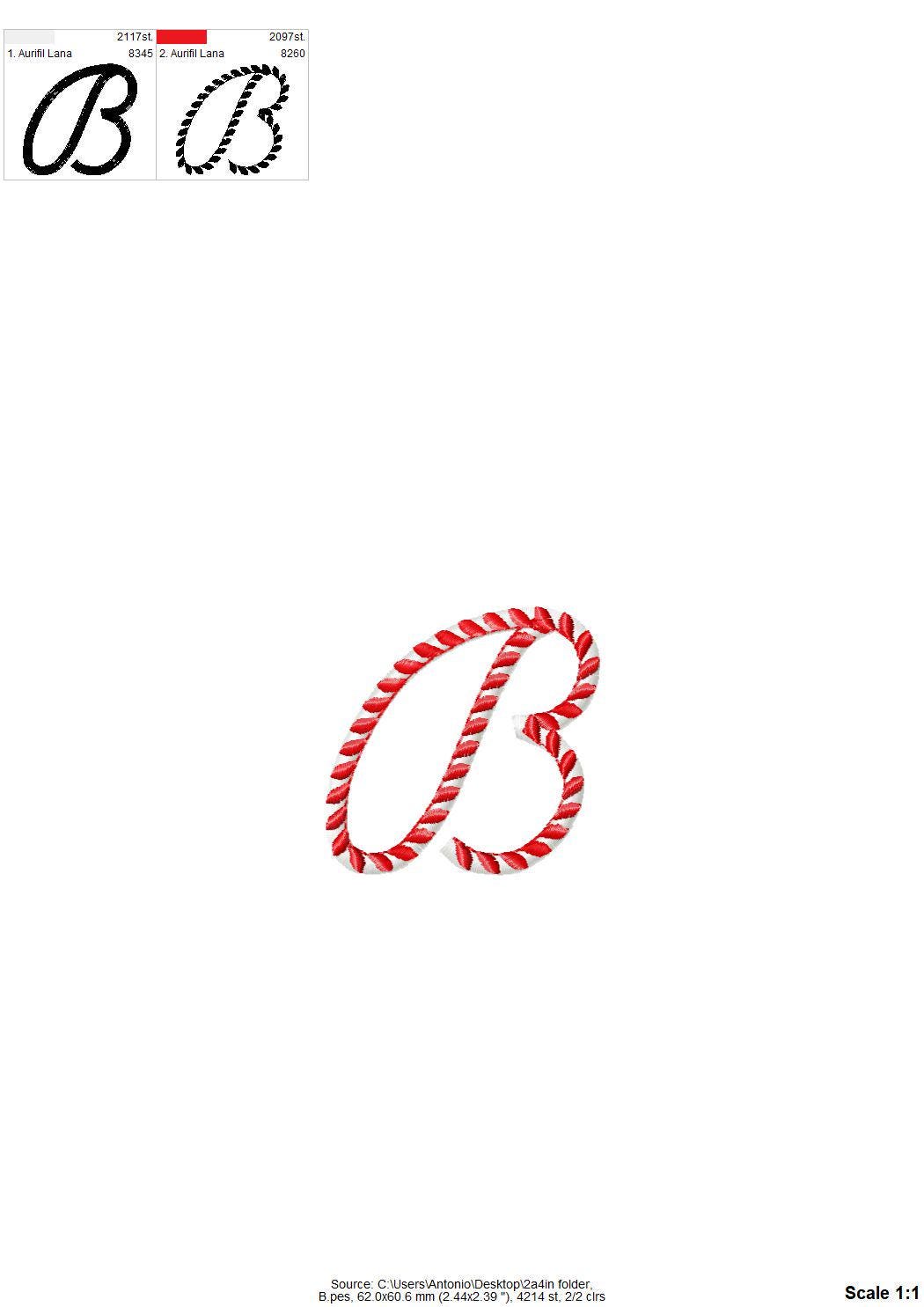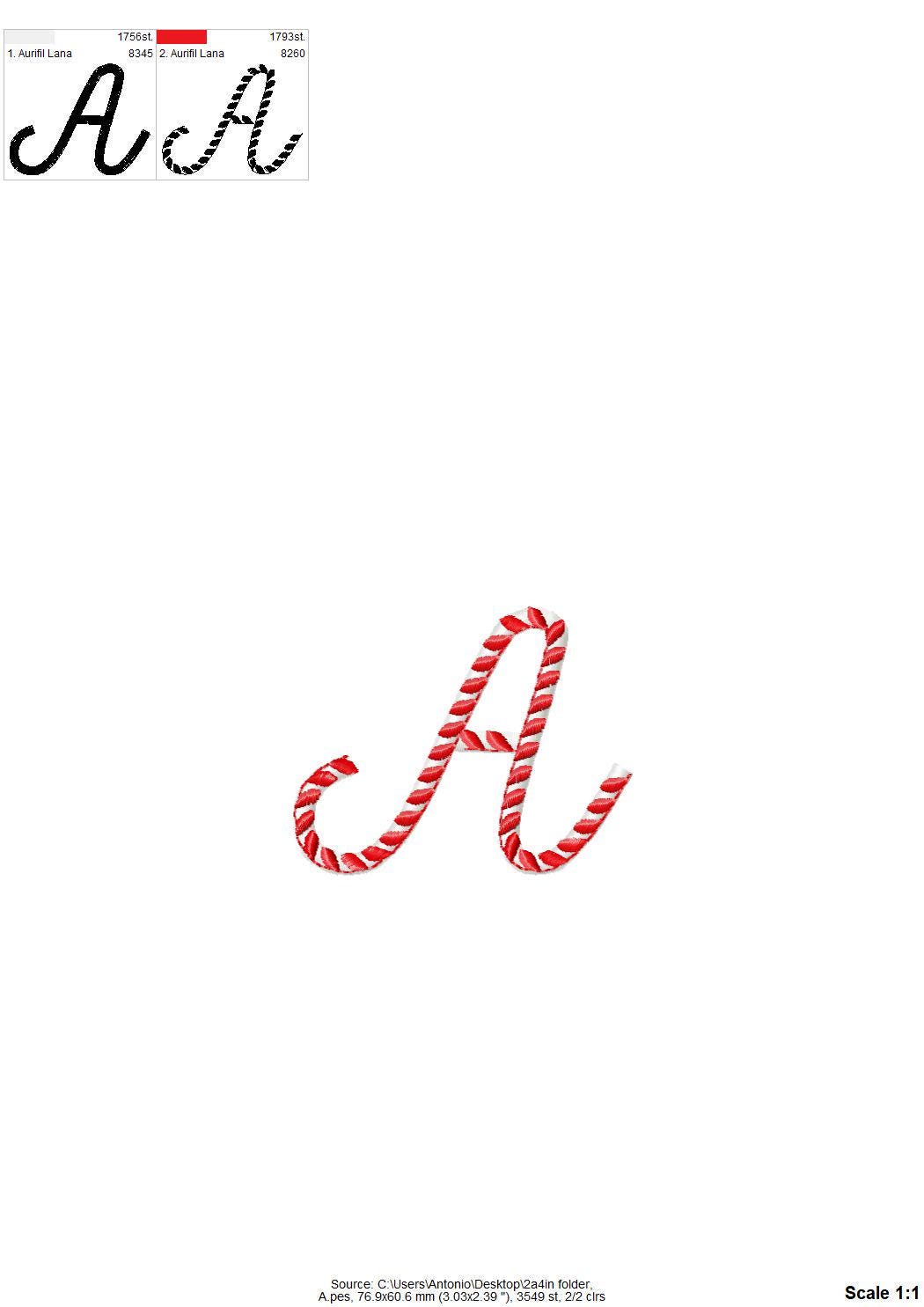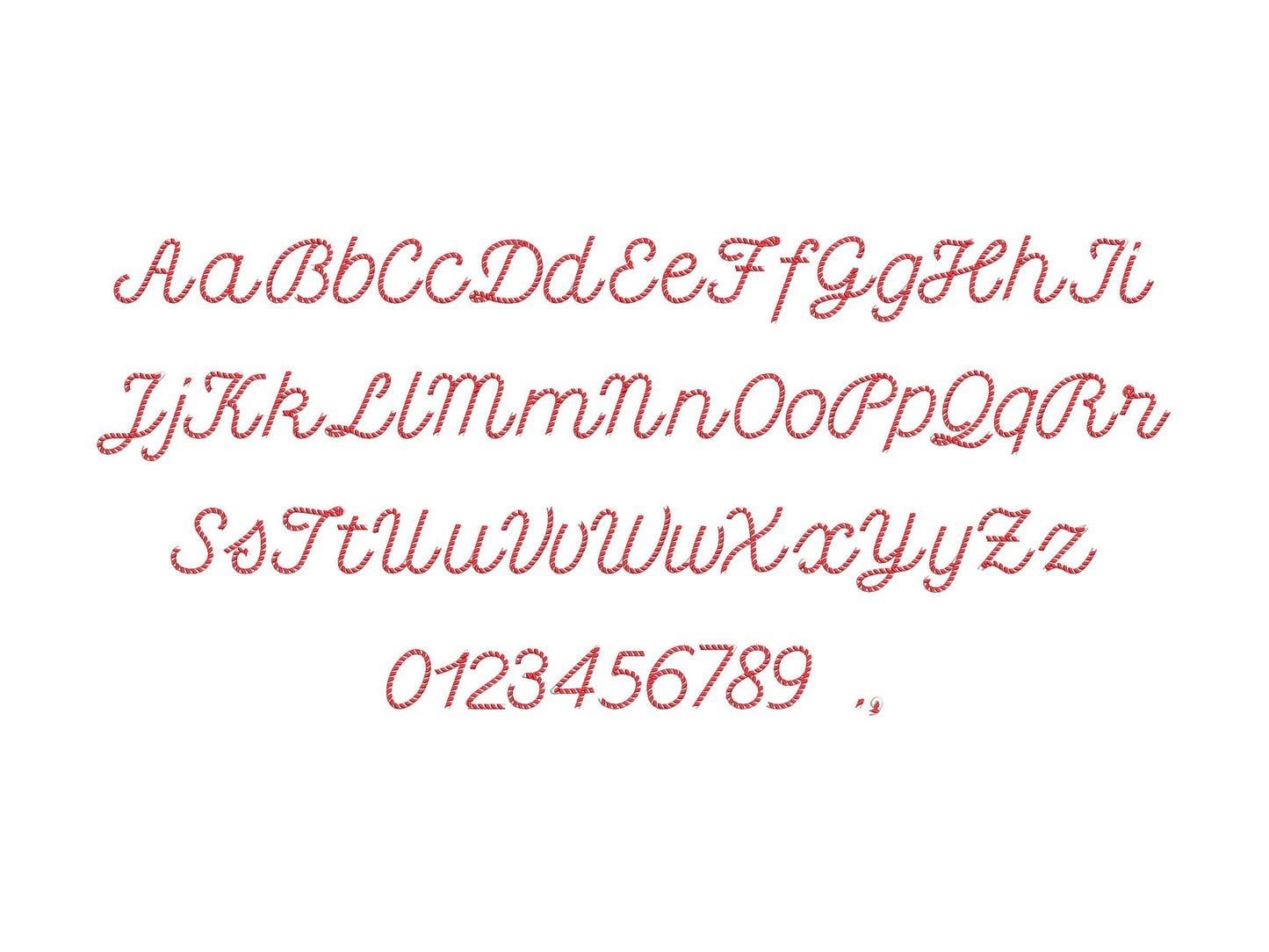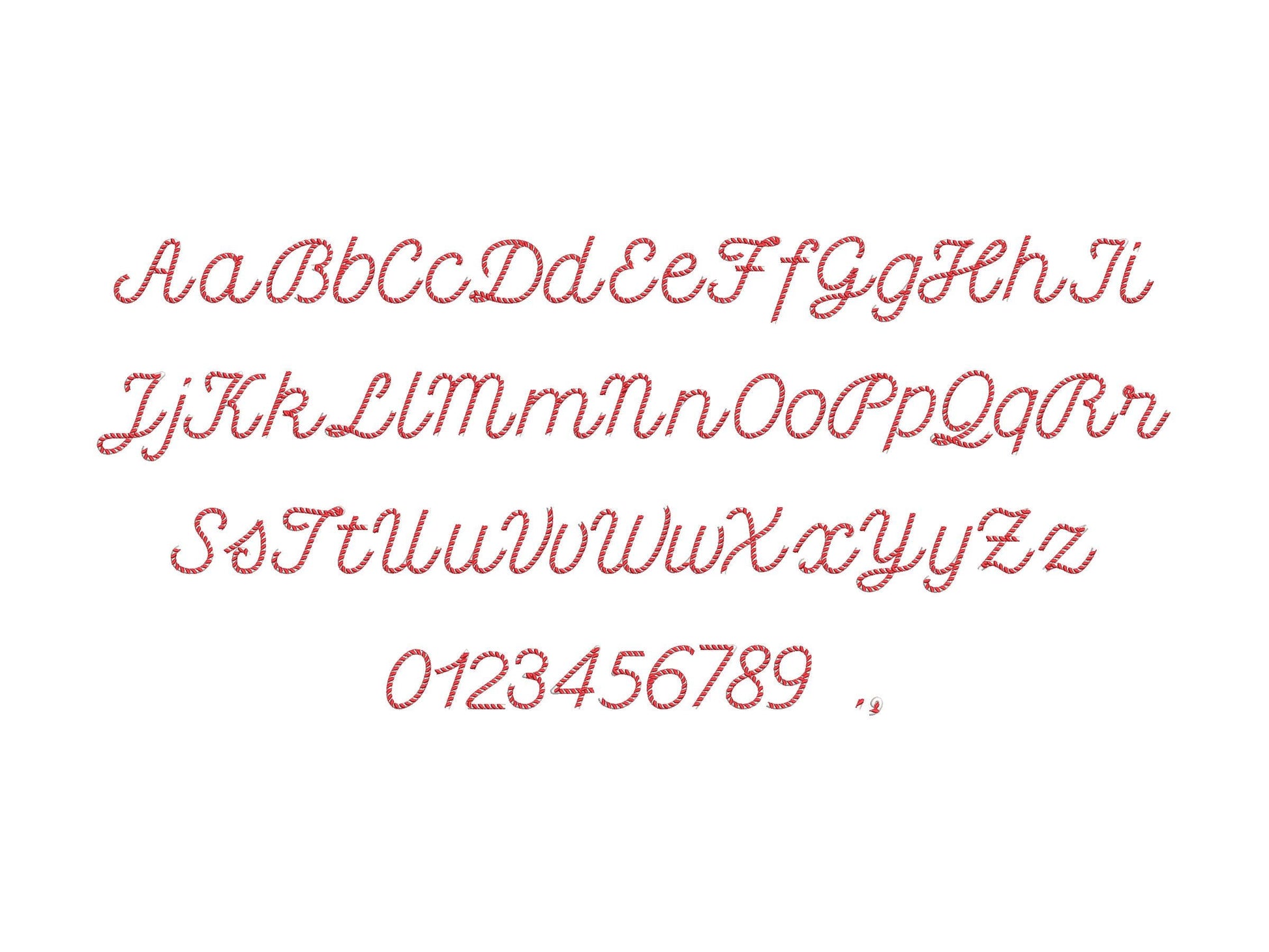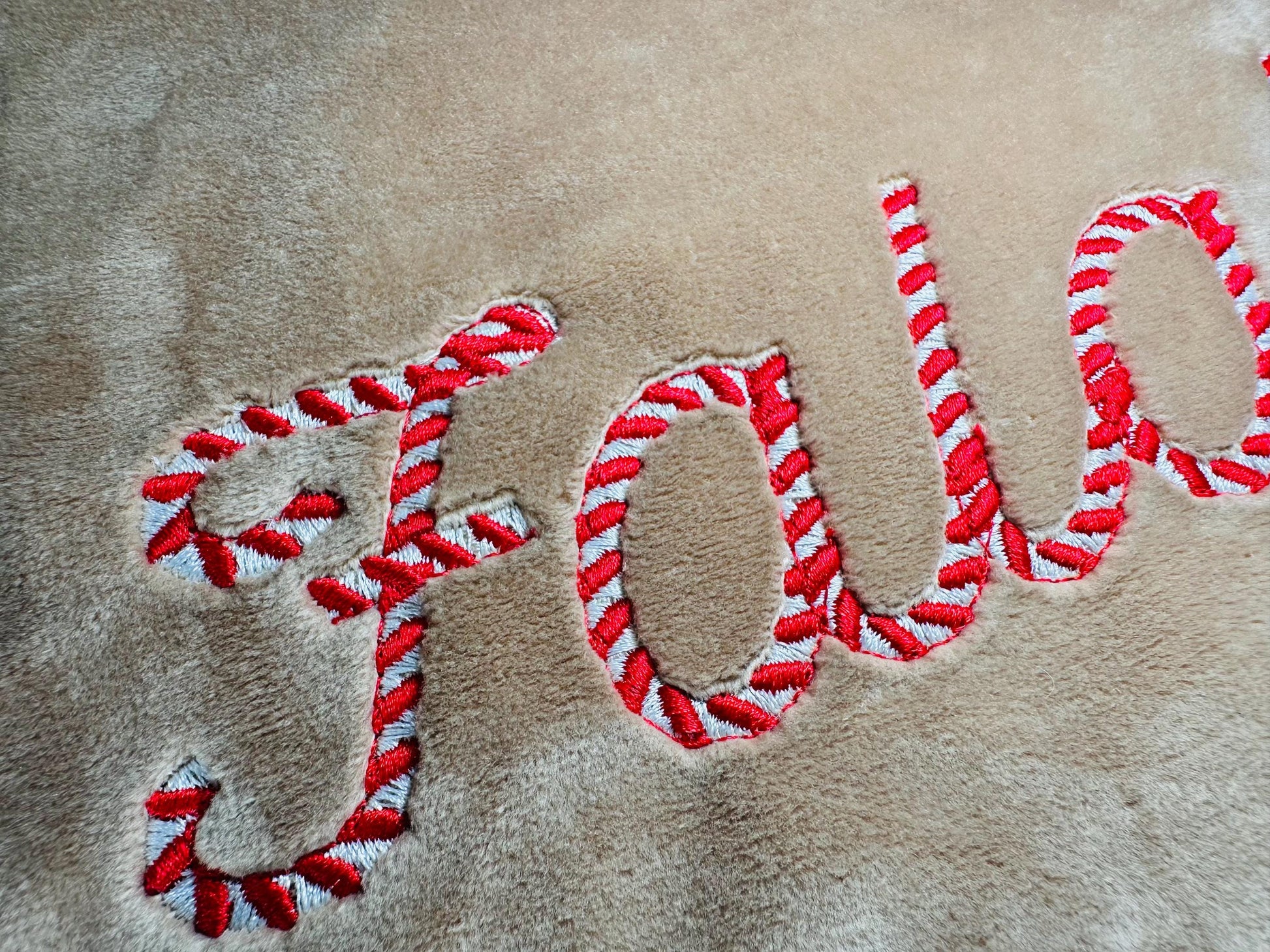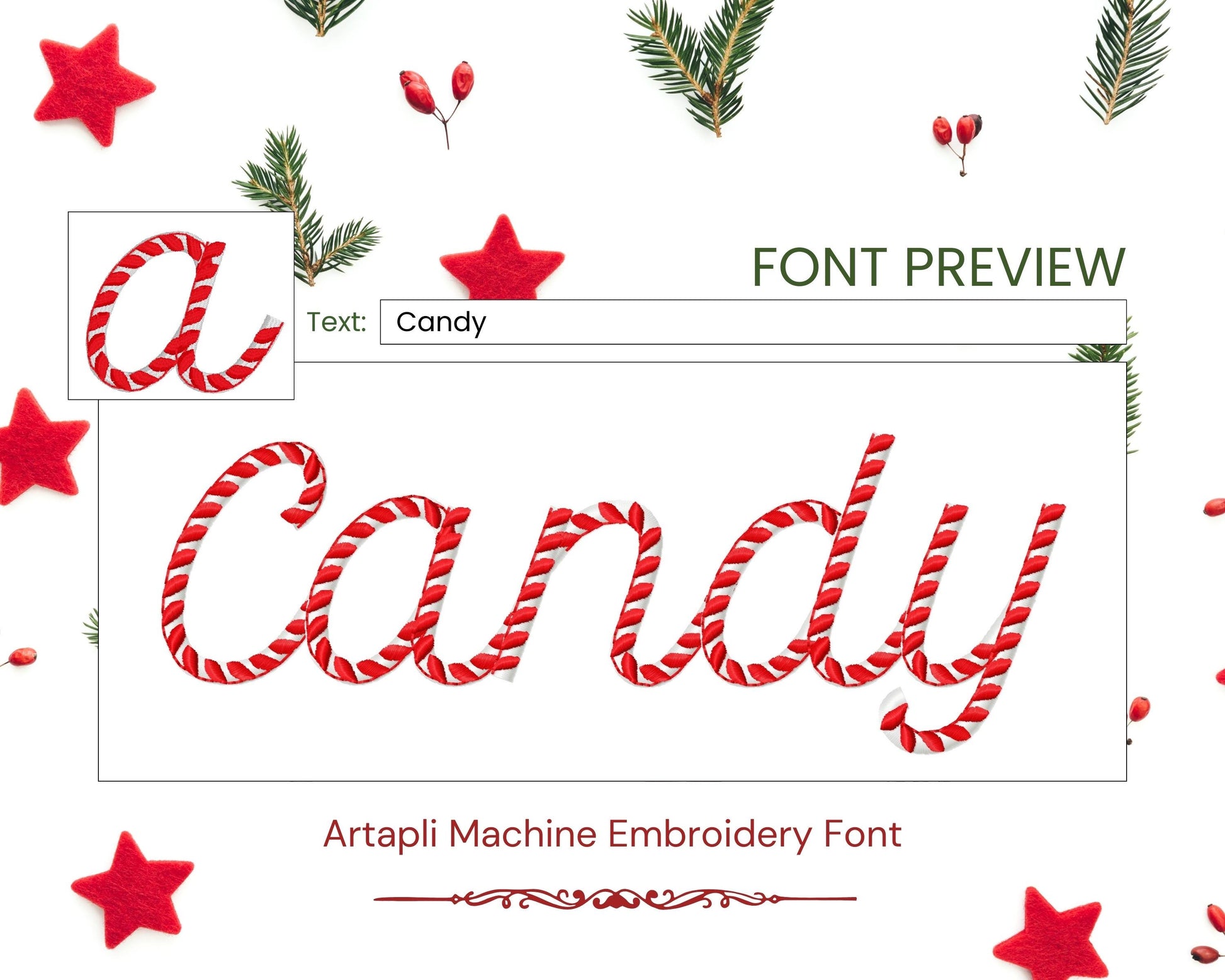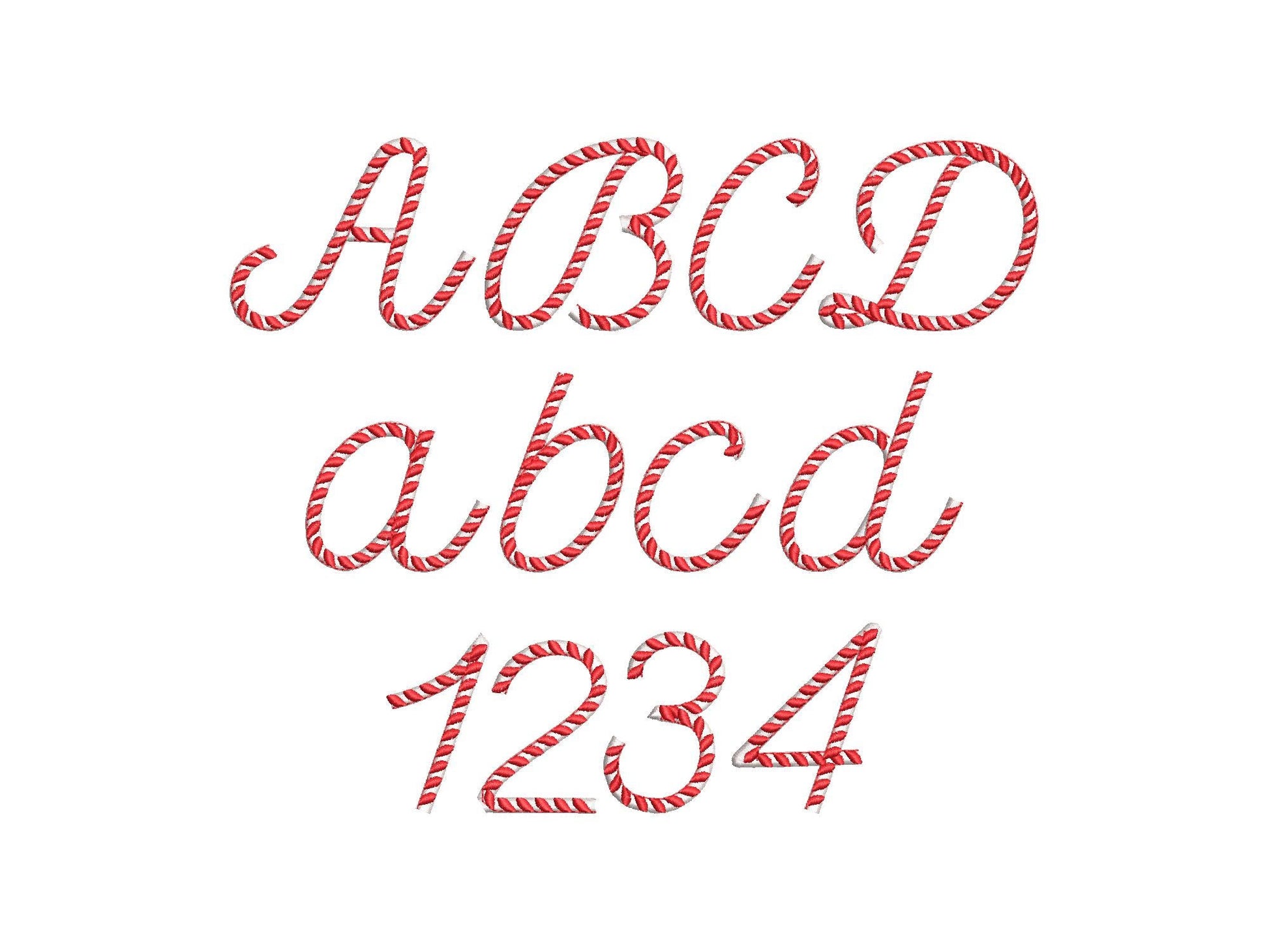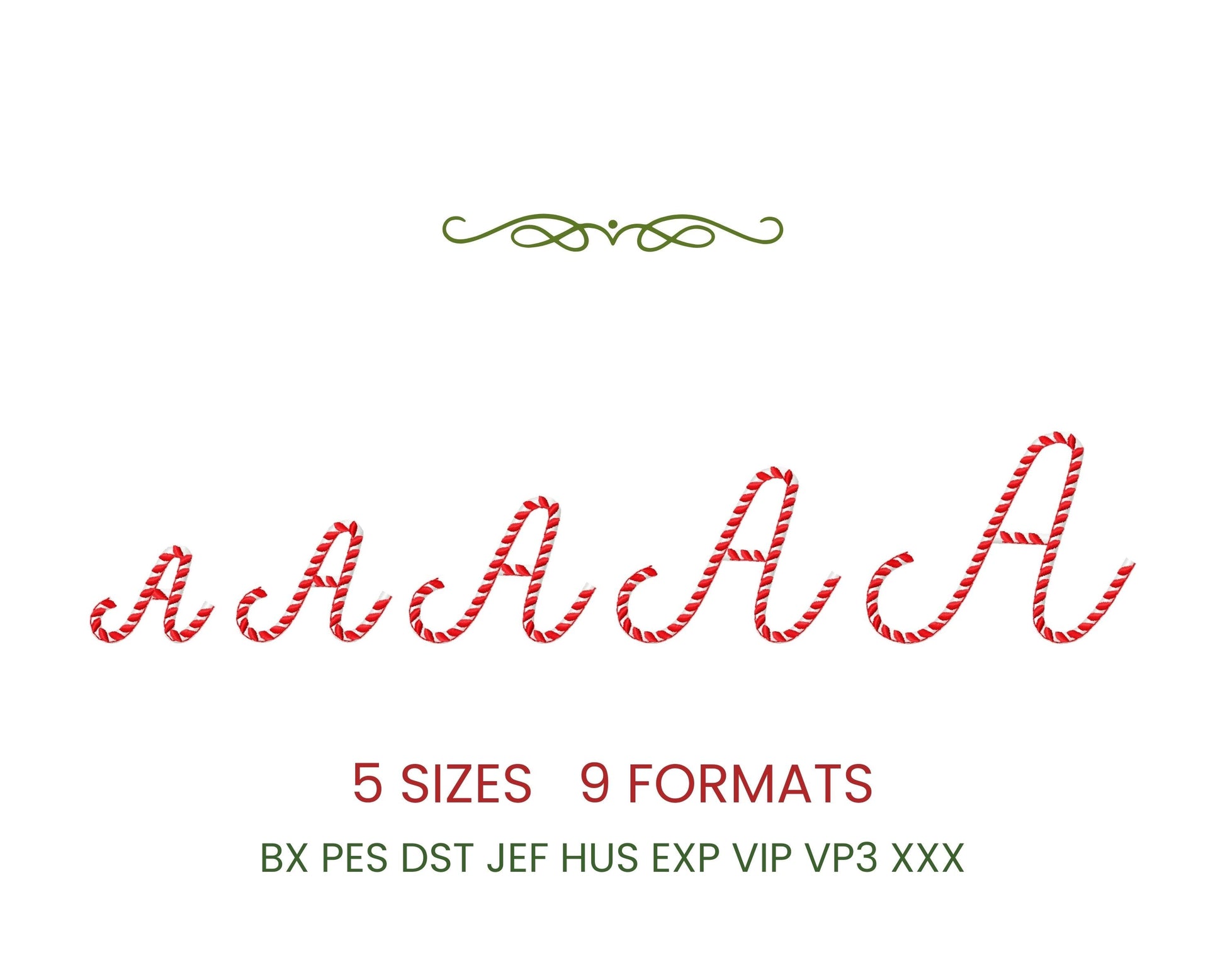
Classy Candy Cane Handwritten Font
Included: Uppercase A-Z, Lowercase a-z, Numbers 0-9, Punctuation
A classy candy cane font in two colors, for Christmas names and words on stockings, sweaters and pillows.
Two-color candy cane stripes run through each letter. Uppercase and lowercase letters, numbers, comma and period in five sizes: 1.6, 2, 2.4, 2.9 and 3.4 inches.
• Candy cane handwritten font
• Uppercase, lowercase, numbers 0-9
• 5 sizes, 1.6 to 3.4 in